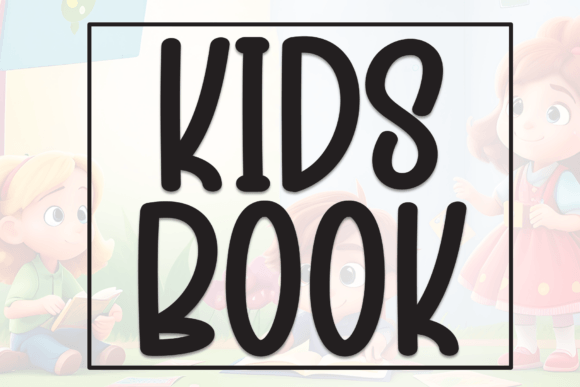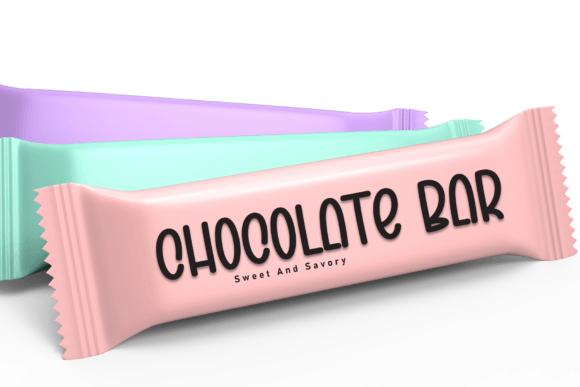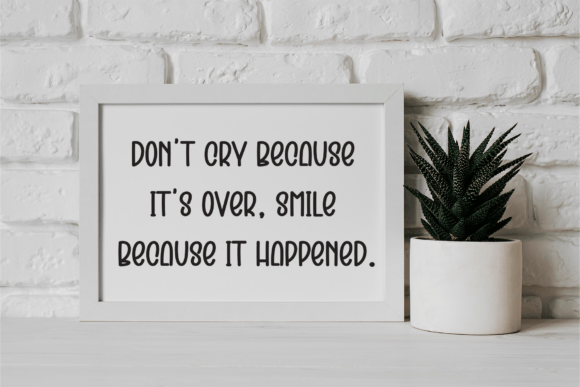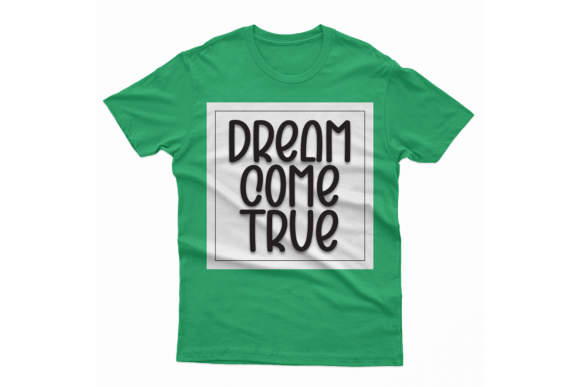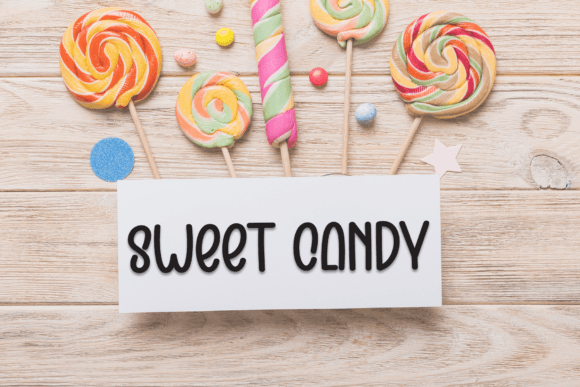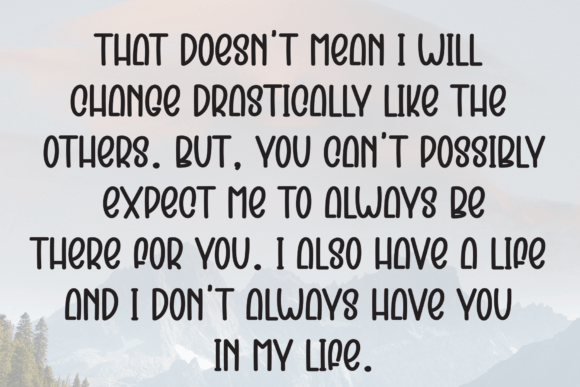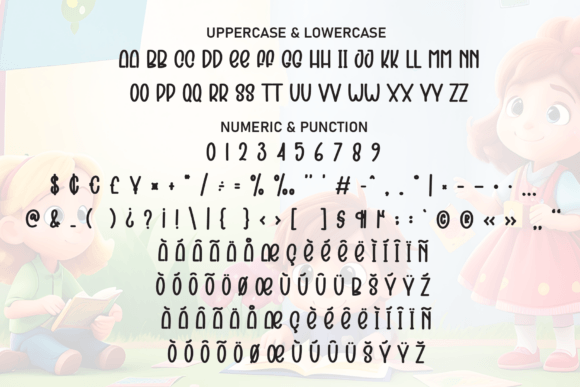
Where Creativity Meets Whimsy: The Magic of Kids Book Font
Do you remember the first time you saw a child’s scribbles transform into a masterpiece? Maybe it was a drawing of a family pet or a fantastical creature that seemed to leap off the page. For designers, that same sense of wonder and imagination can be sparked by a single font – the Kids Book Font.
This playful, handwritten font is more than just a design element; it’s an invitation to creativity and a gateway to the world of children’s literature. Perfect for kids’ books, educational materials, and other projects that need a touch of whimsy, Kids Book Font is a valuable tool for designers looking to bring their ideas to life.
Kids Book Font Key Features
- Unique Characteristics: Kids Book Font features a playful and child-friendly design, with rounded edges and soft curves that make it perfect for children’s books, educational materials, and other applications where a fun and approachable tone is desired.
- Font Style: The font comes in a range of styles, including Regular, Italic, Bold, and Bold Italic, allowing users to add emphasis and variety to their text.
Designer Review: Kids Book Font
Overall, I think Kids Book Font has a lot of charm and character, making it a great choice for children’s book illustrations and educational materials. ✨ Its playful, whimsical feel is sure to capture kids’ attention and draw them in. ✨ The font’s rounded edges and friendly curves give it a sense of approachability and warmth.
However, I do have some reservations about the font’s versatility. ⚠️ While it’s perfect for kids’ books, it might not be the best choice for more formal or professional applications. ⚠️ Additionally, the font’s large size and bold lines can make it feel a bit overwhelming on smaller screens or in tighter layouts.
Some of the font’s strengths include:
- Its unique, hand-drawn feel that adds a touch of personality to any design
- Its wide range of customization options, including color, size, and spacing
- Its suitability for a variety of applications, from children’s books to educational materials
Overall, I think Kids Book Font is a solid choice for designers working on kids’ projects, but it’s not a one-size-fits-all solution. With a bit of caution and creativity, it can be a valuable addition to any design toolkit.
The Kids Book Font is ideal for creating children’s book covers, illustrations, and educational materials. It can also be used for creating invitations, greeting cards, and other print materials.
Remember to adjust the font size and style to suit the age and reading level of your audience.
Alternatives to “Kids Book Font” for Designers
Lato is a popular sans-serif font that is highly legible and versatile. It is suitable for a wide range of applications, from body text to headings. Lato is a great alternative to Kids Book Font when you need a clean and modern look. Compared to Kids Book Font, Lato has a more minimalist feel and is more suitable for digital applications.